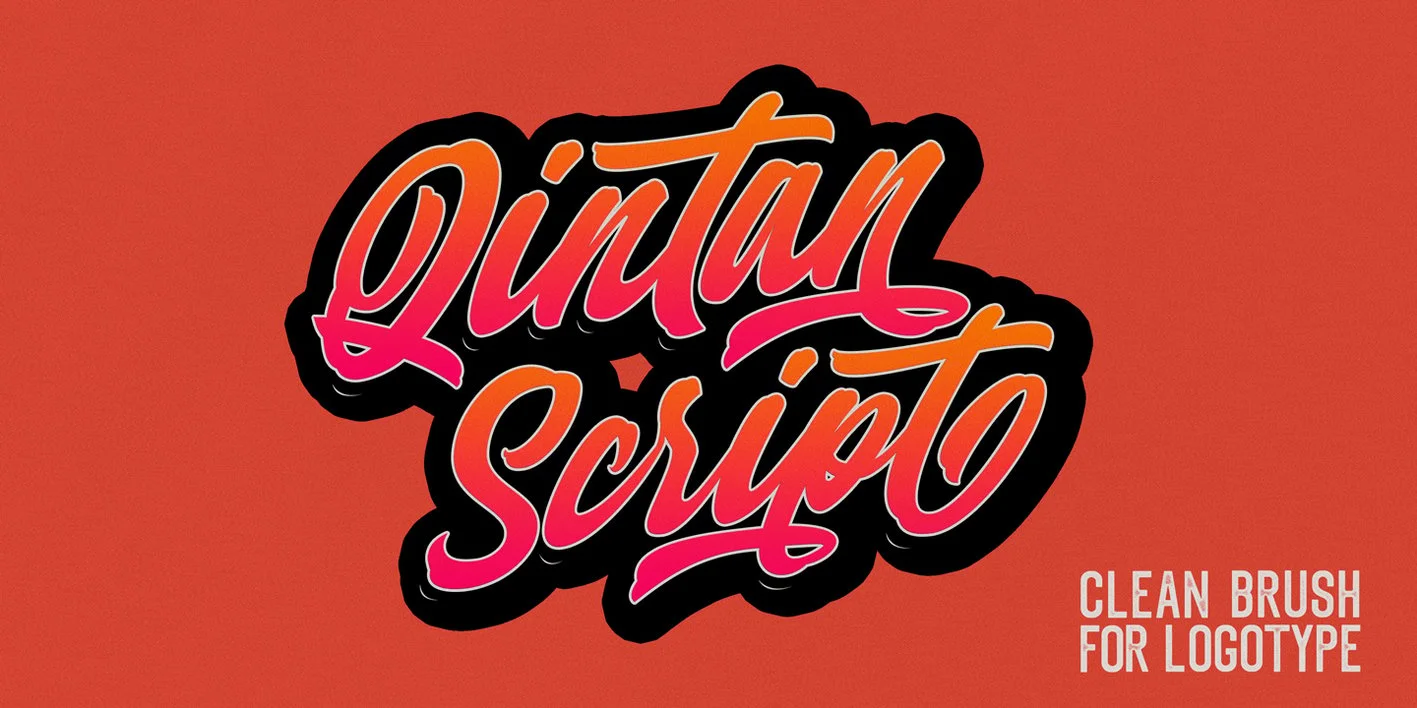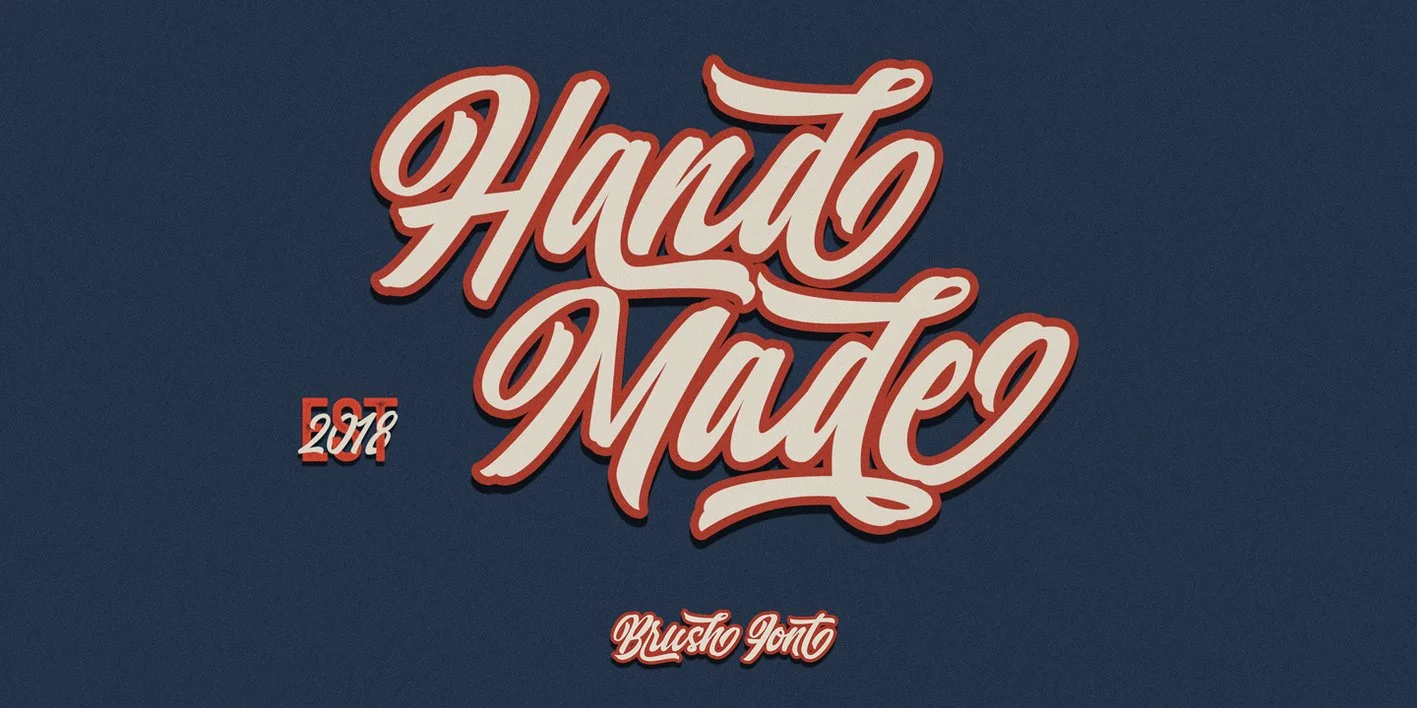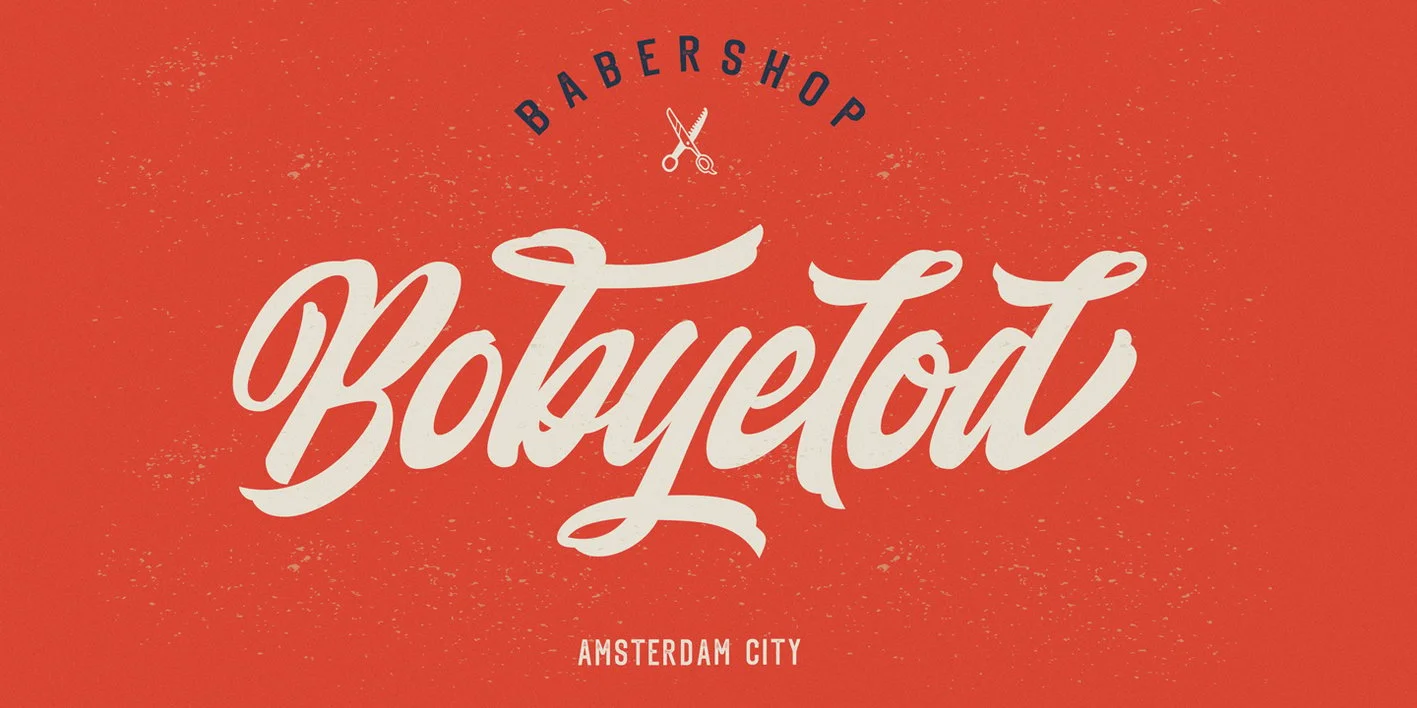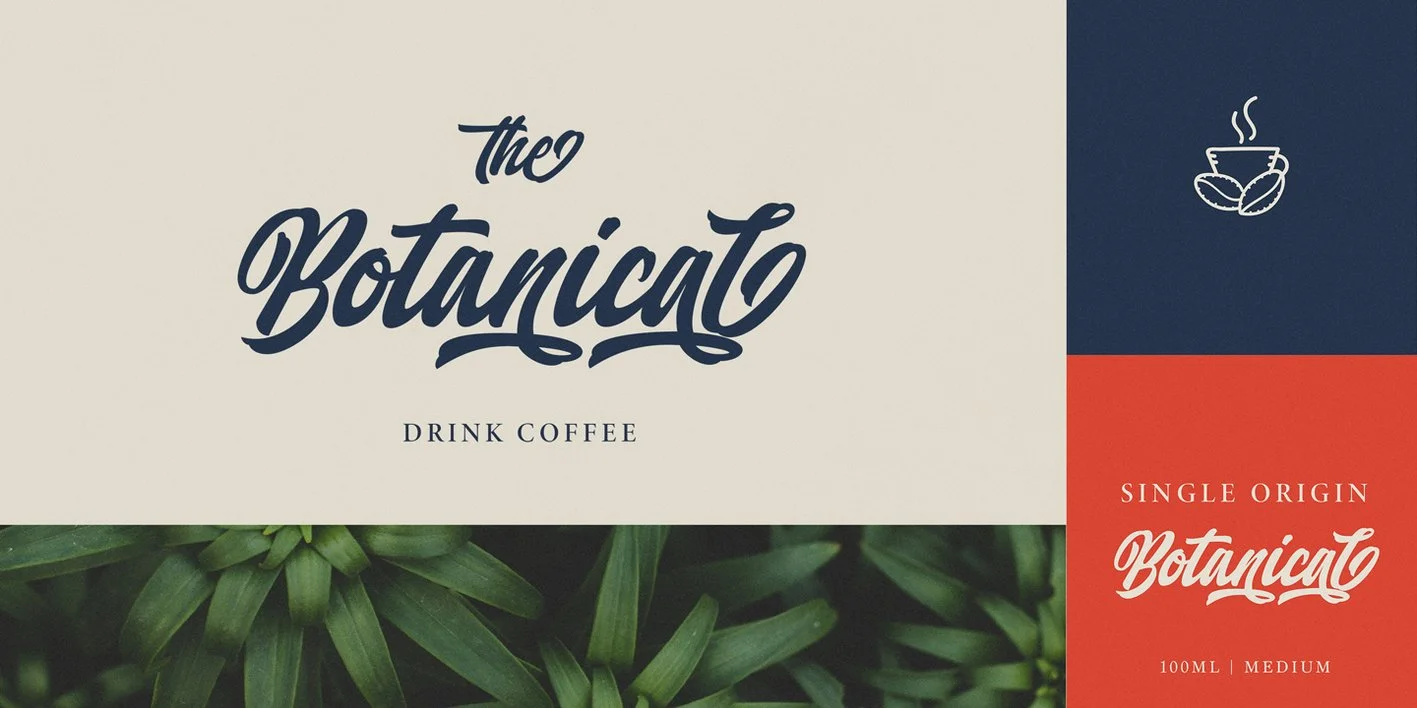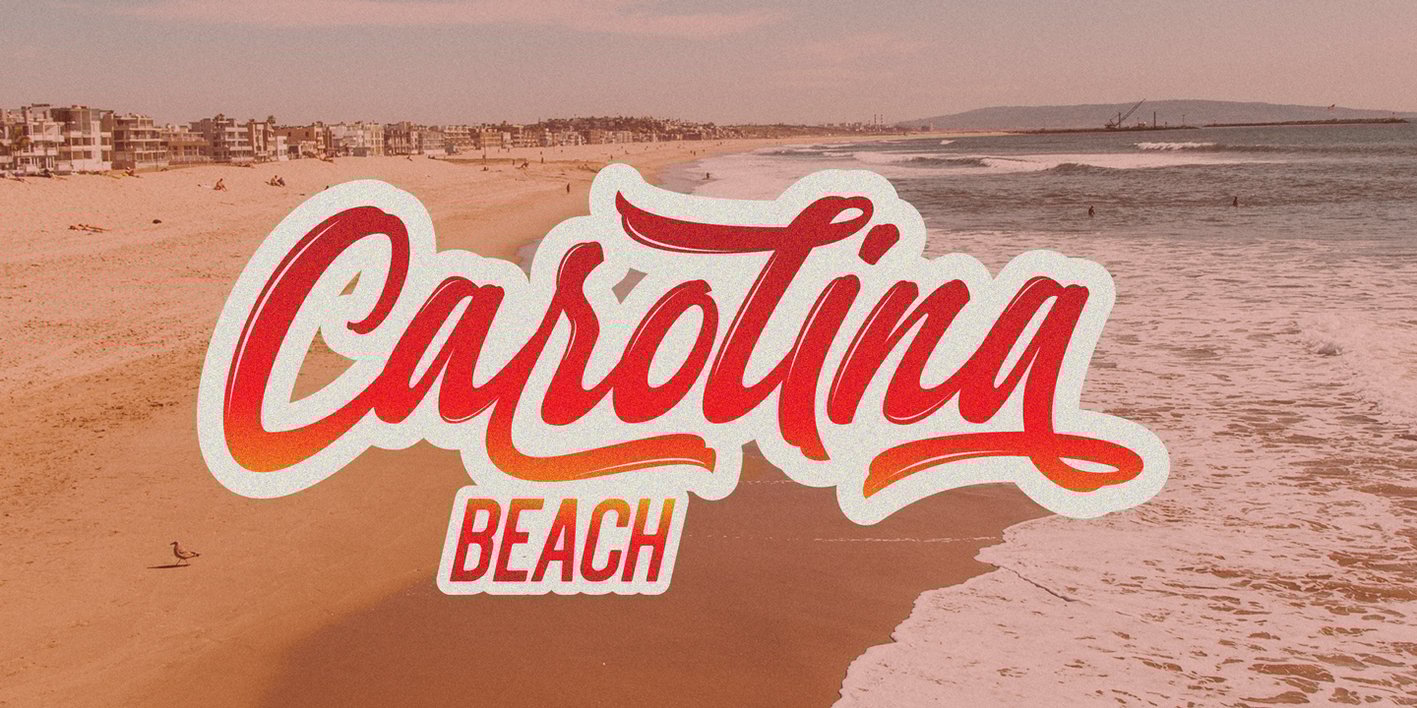
Qintan Script Font
There is a particular satisfaction in finding a typeface that delivers optical balance across all weights without compromise. Qintan Script consistently provides it. The typeface brings an elegant, calligraphic sensibility to a broad range of creative disciplines, with strong typographic hierarchy support that holds up whether the work is print-first or screen-first.
In practice, Qintan Script proves particularly effective for boutique logos, wedding invitations, environmental graphics, logo design, greeting cards. Designers reaching for it find that the type decisions feel resolved rather than laboured — a useful quality when client timelines are tight.
The range of applications extends to fashion editorials, bridal materials, beauty packaging, event signage. That breadth is deliberate: the proportions and spacing were stress-tested across a wide range of mock briefs before the typeface was finalised.
Graphic designers working on identity systems find Qintan Script a reliable choice for projects that demand both personality and restraint. The design avoids the self-conscious quirkiness that dates quickly, settling instead for considered distinctiveness that holds up over time.